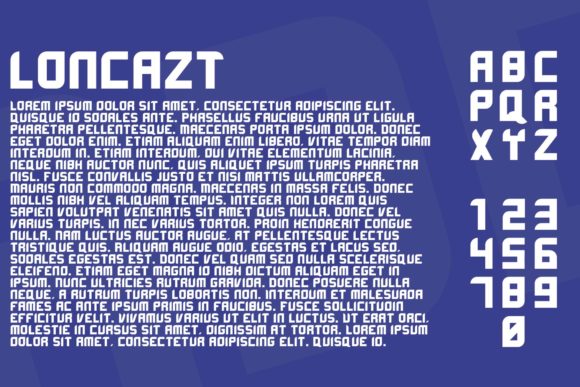
Introduction to Loncazt Font
Loncazt is a bold and authentic display font.
It features chunky characters and it will look absolutely amazing on a wide pool of designs .
Key Features of Loncazt Font